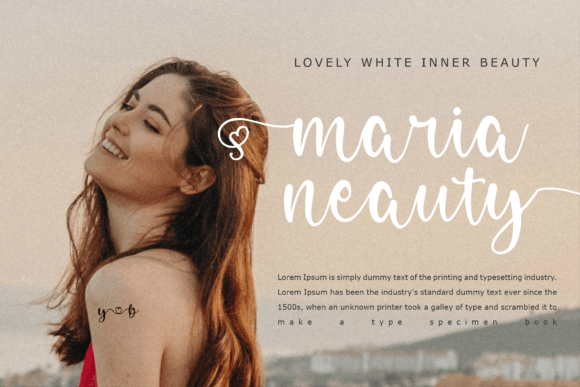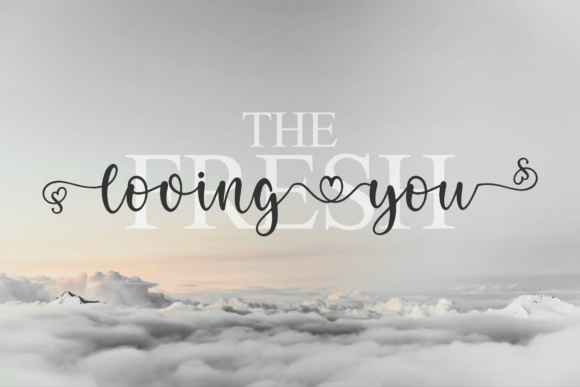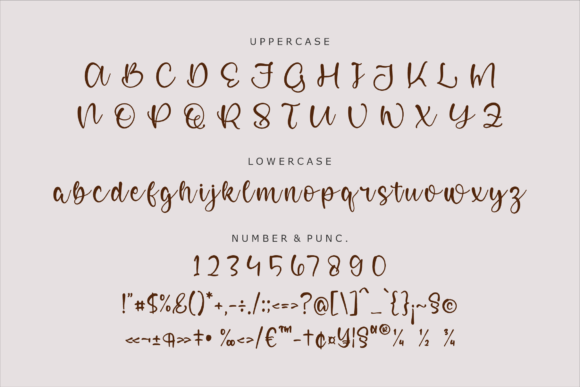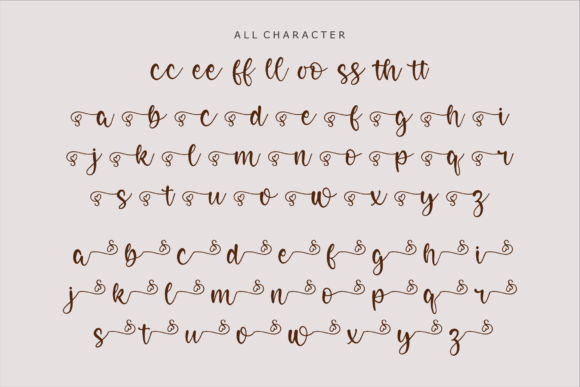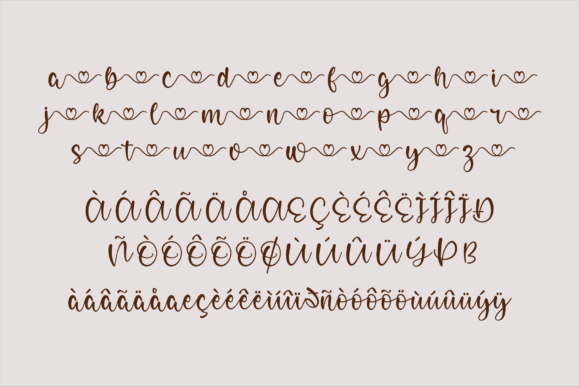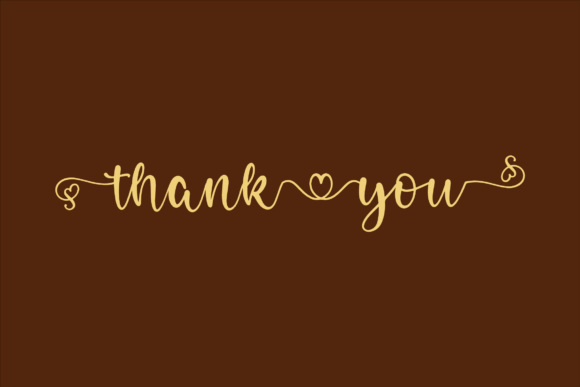
An Exquisite Handwritten Script Typeface
Nathan Moulli is an elegant handwritten font created to elevate any design with grace and style. This font blends classic calligraphic influences with a modern twist, making it both timeless and fresh. With smooth curves and well-balanced letters, Nathan Moulli is perfect for projects that need a refined, sophisticated touch.
Its versatile look adapts easily to both personal and professional designs, ensuring your work always feels polished.
Nathan Moulli is a font you’ll love using again and again. It’s ideal for wedding invitations, save-the-date cards, and thank you notes. The elegant script style sets a romantic, heartfelt tone that your guests will remember.
For branding, Nathan Moulli shines on logos, product packaging, and business cards. The luxurious handwritten feel makes your brand stand out as premium and approachable.
This font also works beautifully for quotes, posters, and personal gifts. The flowing lines and calligraphic details make any message look thoughtful and artistic.
On social media, Nathan Moulli helps your content look consistent and professional. Whether you’re promoting products, sharing announcements, or posting inspiration, this font keeps your visuals polished and inviting.
Despite its artistic flourishes, Nathan Moulli remains clear and legible in any size. Balanced spacing and smooth connections between letters keep your text tidy and readable, from large headlines to small captions.
For a clean, modern look, pair Nathan Moulli with a minimalist sans-serif font. Use Nathan Moulli for titles and highlights, and the sans-serif for supporting details. This pairing creates a fresh, professional design that feels cohesive and elegant.
To make Nathan Moulli stand out, use soft backgrounds and muted color palettes. Shades like ivory, blush pink, and warm gray help the script pop without overpowering your design.
When designing invitations or packaging, consider adding delicate illustrations or subtle flourishes that match the font’s refined style.
On social media, embrace white space so your text remains the focus and your visuals stay clean.
Think about the mood you want to create. Nathan Moulli is perfect for designs that should feel elegant, warm, and timeless.
Nathan Moulli isn’t just another handwritten font—it’s a creative asset that makes any design feel special and sophisticated. From professional branding to personal keepsakes, this font adapts effortlessly to any project and adds a polished finish to your work.
Adding Nathan Moulli to your font collection means you’ll always have a versatile, beautiful option ready to go. Whether you’re creating logos, invitations, or social media content, this font helps every piece feel unique and memorable.